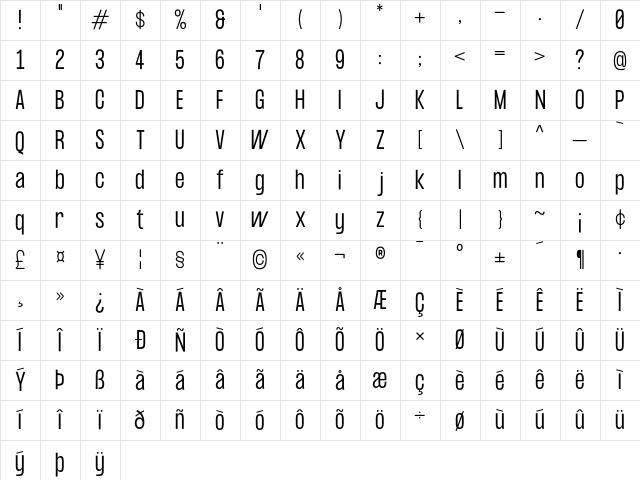
Formula Condensed Light Free Font
Formula Condensed Light
Formula Condensed Family
Formula Condensed Light
Design Context for Formula Condensed
Formula Condensed is a composed and adaptable typeface that performs quietly and consistently across a wide range of design contexts. Its slender proportions lend an understated elegance to any composition. Its narrow stance lets it pack a punch even in space-constrained designs.